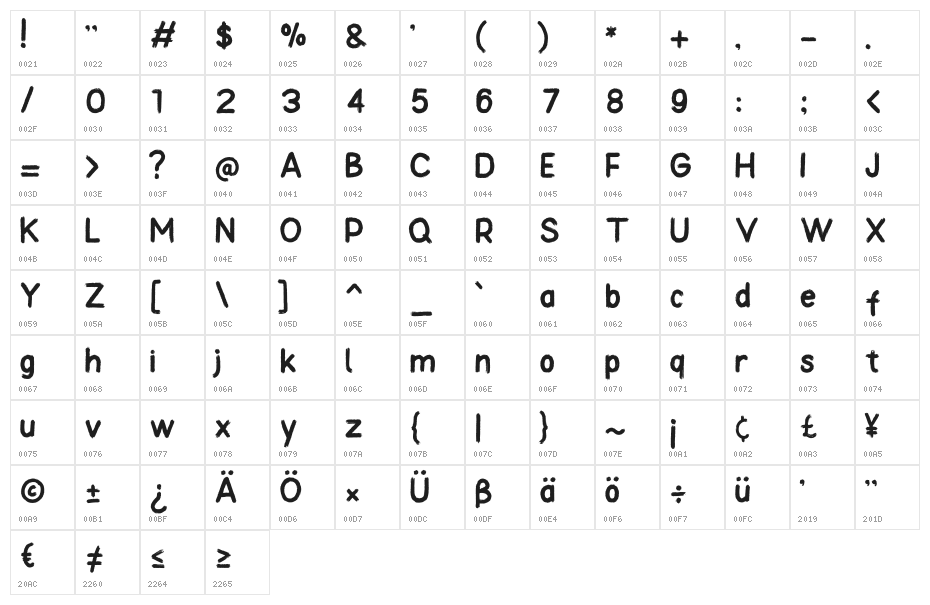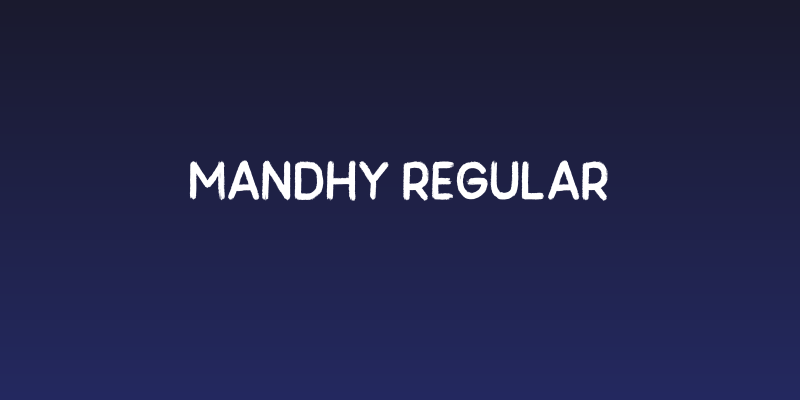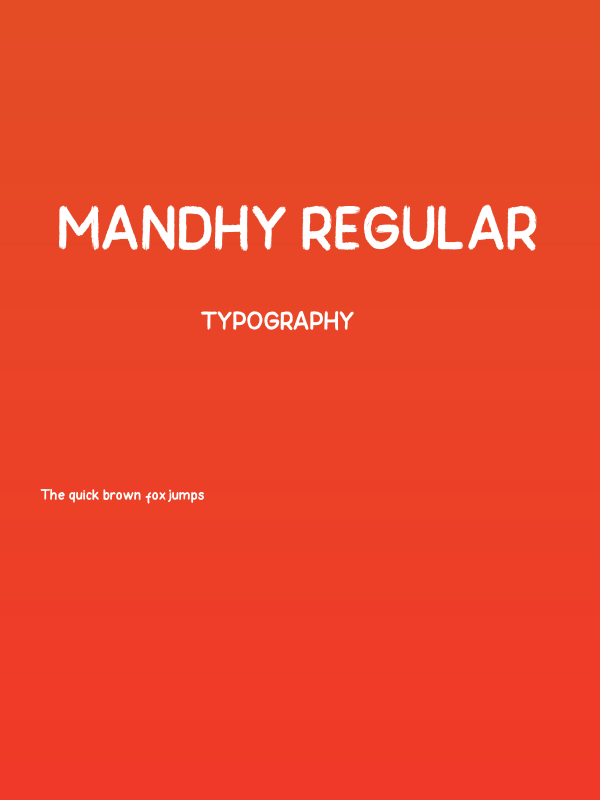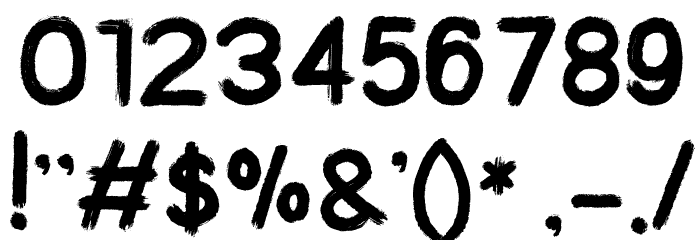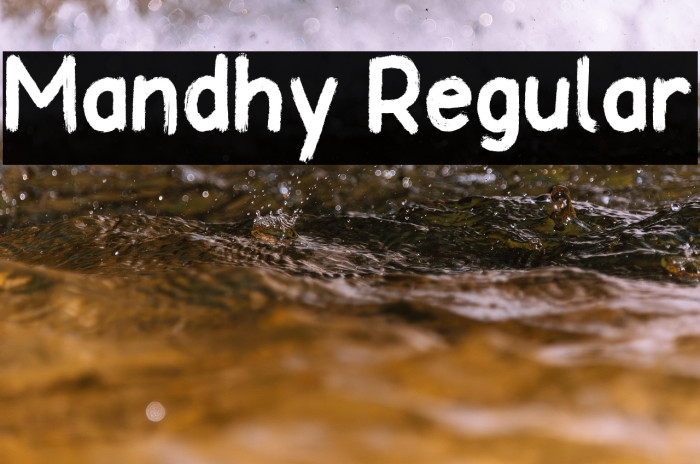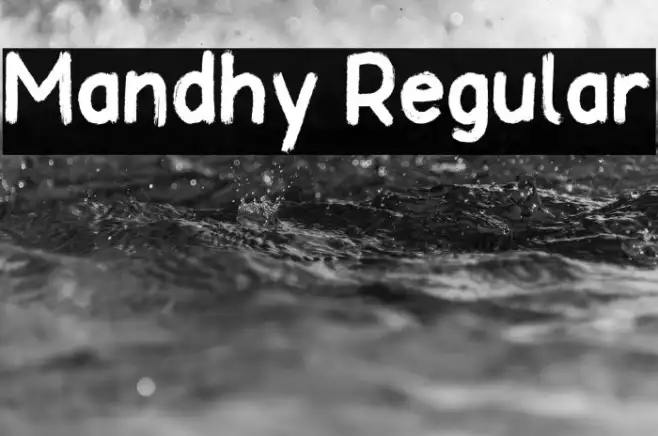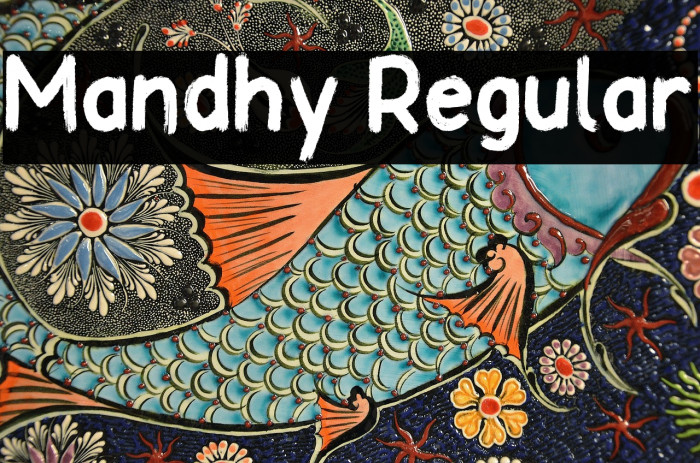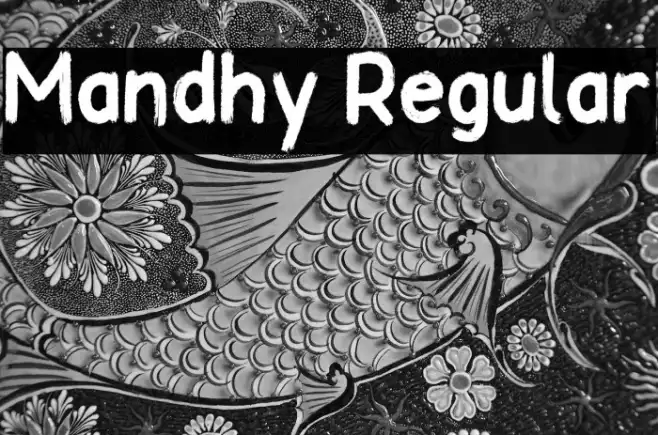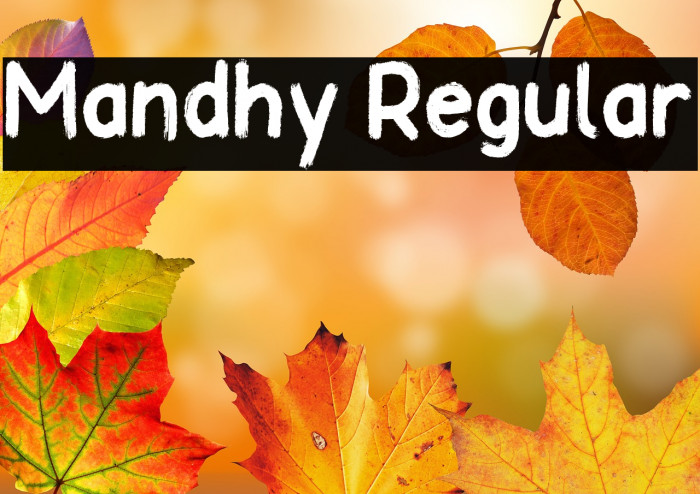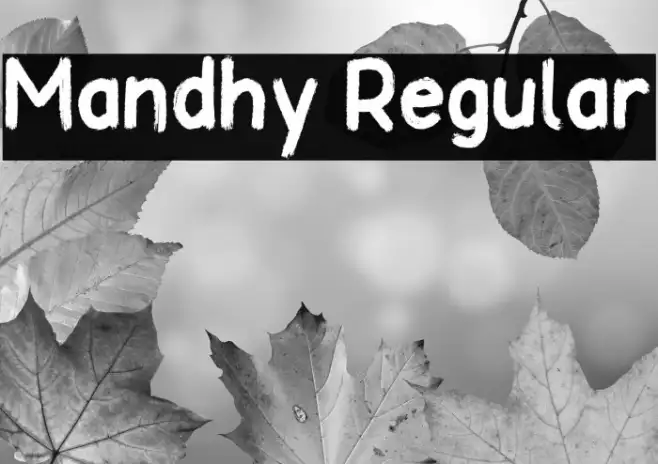
Mandhy Regular Font
Mandhy Regular Description
This font features a bold and expressive brush style, characterized by its thick strokes and dynamic appearance. The letters have a hand-painted quality, giving them a lively and artistic feel. The uppercase and lowercase letters maintain a consistent style, with rounded edges and a slightly irregular baseline, enhancing the handcrafted look. The numerals and special characters follow the same design principles, ensuring a cohesive appearance across all glyphs. This font's boldness and unique texture make it stand out, perfect for projects that require a strong visual impact.
| Overall Style | Artistic, Expressive |
| Proposed Projects | Ideal for branding, posters, artistic projects, and any design requiring a bold, expressive typeface. |